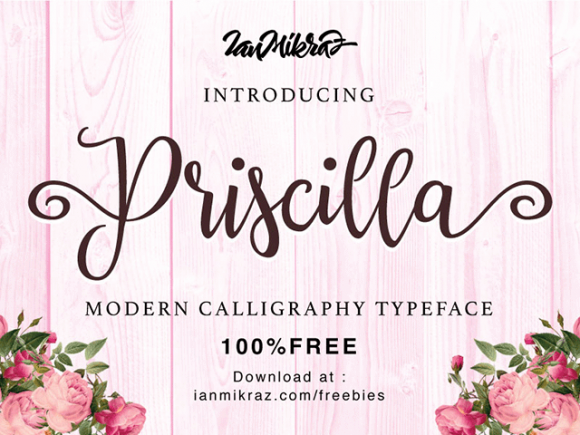
Free Priscilla A calligraphic font
Featuring a free priscilla a calligraphic font. This is a downloadable free font file brought to you by Freebies Bug. You can create a professional designs with this beautiful font.